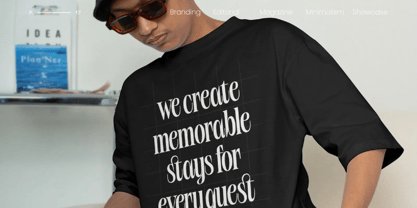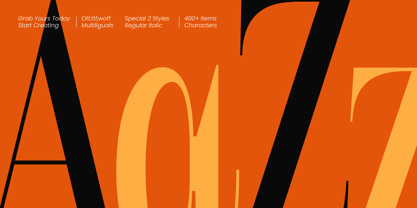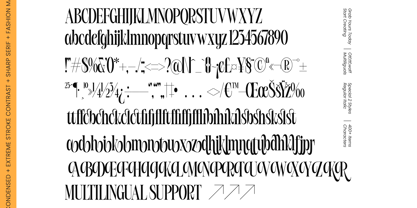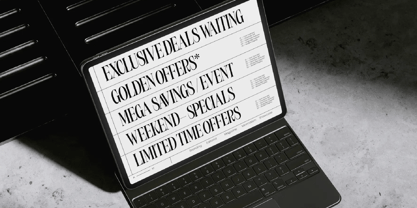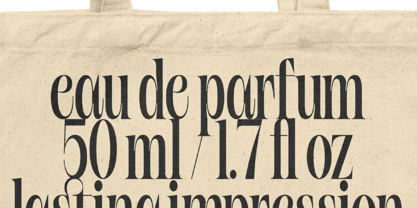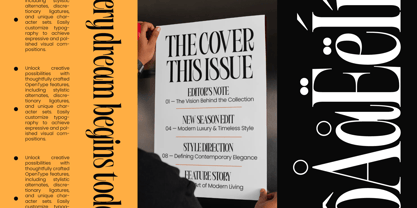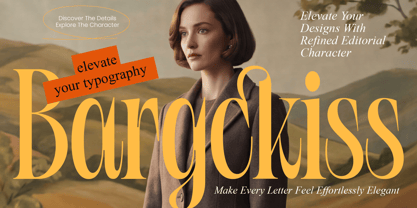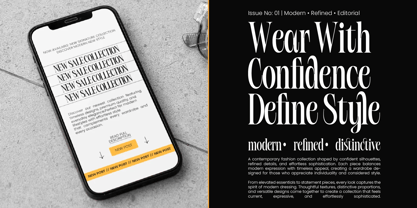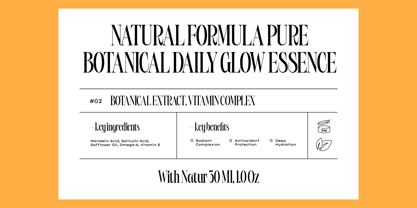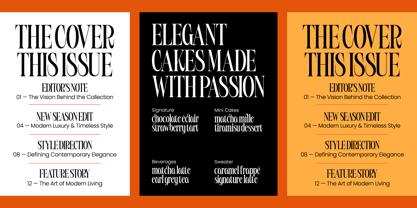
Bargckiss
Bargckiss is an exquisite display of refined elegance, capturing the essence of high-end editorial design with its striking presence. This font serves as a bridge between classic sophistication and cutting-edge modern aesthetics for discerning designers.
Inspired by the golden era of fashion magazines and the sharp lines of mid-century tailoring, this typeface evokes a sense of nostalgia blended with a contemporary pulse. It mirrors the poise of a silent film star stepping into a modern-day gallery, commanding attention with every stroke.
Built for maximum branding impact, this modern serif display delivers a luxury typography experience that is both bold and graceful. Its high-contrast serif architecture creates a rhythmic flow, making it an essential editorial font for projects that require a touch of class and distinction.